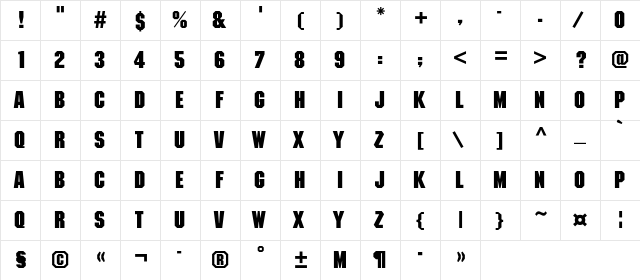
MachineC Bold
Design Context for MachineC Typeface
MachineC is a composed and adaptable typeface that performs quietly and consistently across a wide range of design contexts. The heavy weight commands attention and anchors typographic hierarchies.
Pro Tip: Use MachineC in both headline and body roles to test its range before committing to a single application.